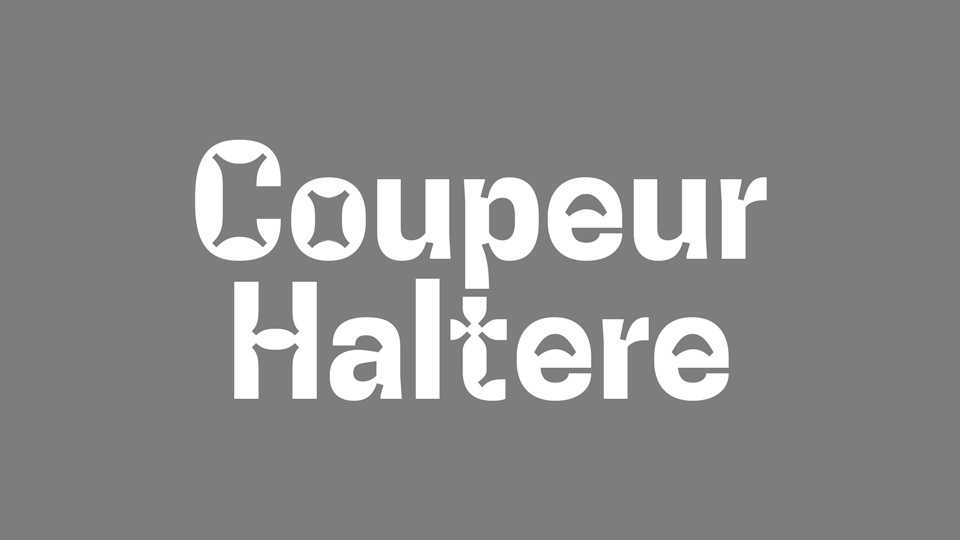
Download Coupeur Haltère font, a decorative sans serif typeface, a creative fork of Cooper Hewitt. The font looks great for headlines, posters, prints and more.
Designer: Hadrien Bulliat